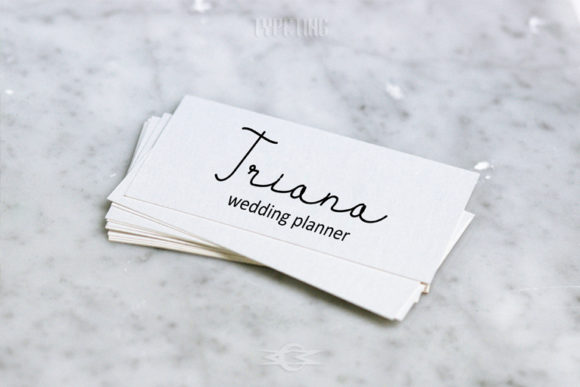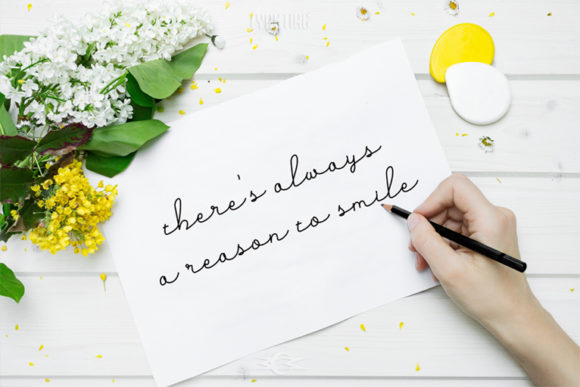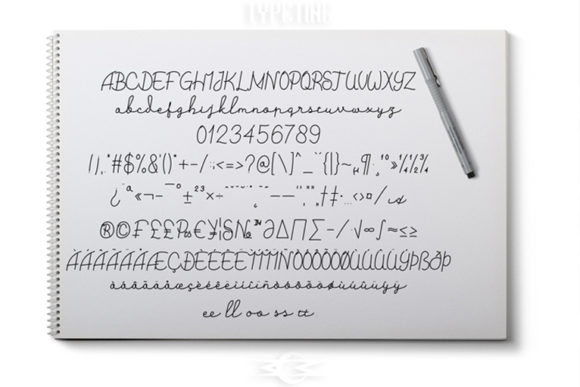
Halimpu Font
About Halimpu Font
The Halimpu is a natural signature font. Halimpu is a Sundanese word that means melodious. It was inspired by nice songs and can be used for every design which needs a natural handwritten touch.